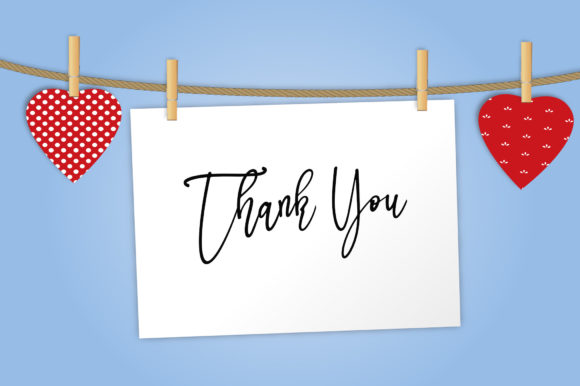
Introduction to Butter Milk Font
Have you ever found yourself staring at a blank canvas, trying to bring your creative vision to life? For designers, this moment is a familiar one, filled with anticipation and possibility. It’s the moment when the right font can make all the difference, elevating your design from good to great.
That’s where the Butter Milk Font comes in – a fine, smart script font that embodies sophistication and elegance. Its incredibly versatile style makes it a valuable resource for any design project, from wedding invitations to branding materials. With its high-quality design, you can create stunning visuals that leave a lasting impression.
Key Features of Butter Milk Font
- Includes multiple font styles, including regular, bold, and italic, providing versatility for various design needs.
- Supports a wide range of languages, making it a suitable choice for international creative projects.
Honest Review: Butter Milk Font
I recently came across the Butter Milk Font, a free download that caught my attention for its unique design. As a designer, I was excited to see if it would live up to my expectations.
- Unique Design: The Butter Milk Font has a distinctive look that’s perfect for creative projects where you want to stand out.
- High Quality: The font is well-crafted, with clear and crisp lines that make it easy to read.
- Transparent Background: This feature allows for seamless integration with images and backgrounds, giving you more design flexibility.
Overall, I’m impressed with the Butter Milk Font’s potential to elevate your design projects. Its unique design and high-quality construction make it a valuable resource for designers.
- Limited Character Set: The font’s character set is somewhat limited, which may not be suitable for long-form texts or complex designs.
- Not Ideal for Body Text: Due to its unique design, the Butter Milk Font may not be the best choice for body text, where readability is paramount.
Despite these limitations, I believe the Butter Milk Font is still a great design resource to have in your arsenal, especially for creative projects where you want to make a statement.
Tips for Getting the Most Out of Butter Milk Font
For the best results, use Butter Milk Font on a transparent background to allow the design to shine. Experiment with different font sizes and colors to achieve a unique look that complements your design project. You can also combine Butter Milk Font with other design elements, such as graphics and shapes, to create a visually appealing design.
Common Use Cases for Butter Milk Font
Butter Milk Font is ideal for a variety of design projects, including logos, social media graphics, presentations, and documents. Its high-quality design and transparent background make it a popular choice for designers looking to create visually appealing and professional-looking designs.